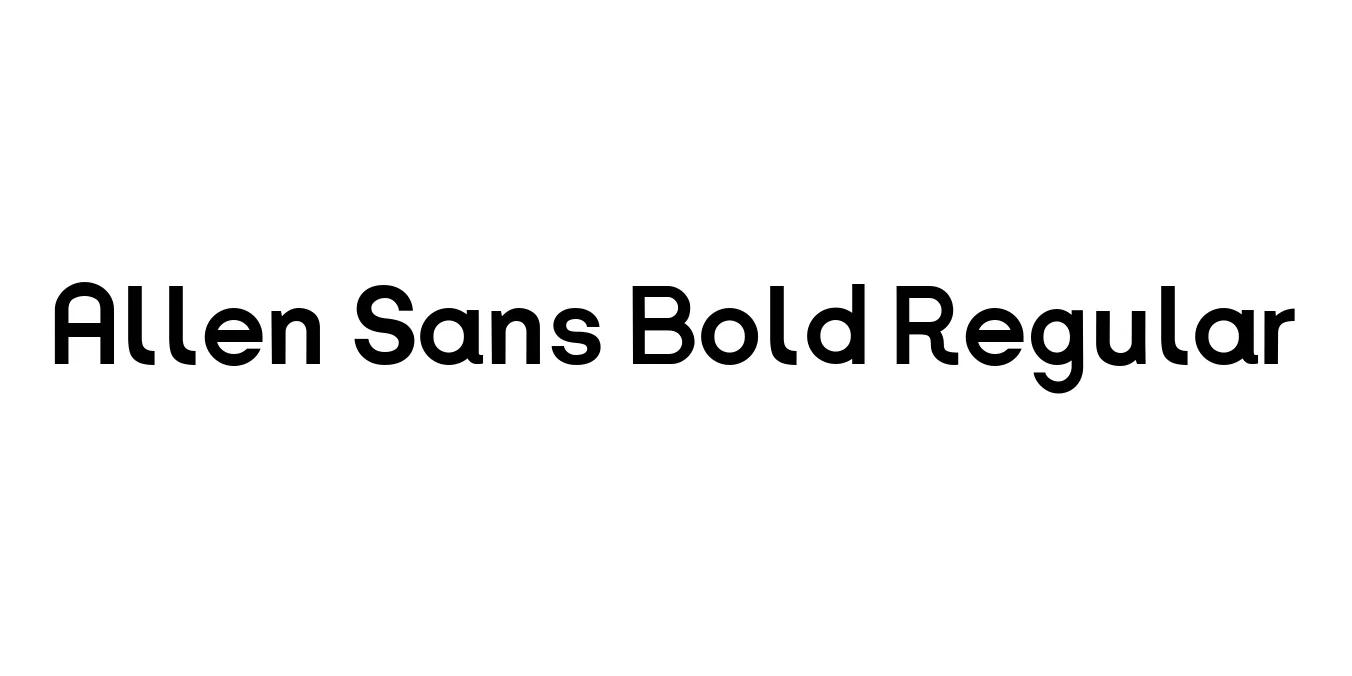
Allen Sans Bold Regular
Allen Sans Bold Regular is a contemporary geometric sans-serif typeface designed for maximum impact and clarity. Its structure is built upon clean lines and balanced proportions, making it an ideal choice for modern visual identities. The font strikes a perfect balance between professional rigidity and approachable softness, ensuring that your message is conveyed with both authority and elegance.
This bold weight specifically excels in high-contrast environments such as digital interfaces and large-scale print media. Originally developed to meet the demands of corporate branding and editorial design, it has evolved into a versatile tool for designers seeking a timeless aesthetic. Whether used for striking headlines or minimalist logos, Allen Sans Bold provides a robust foundation for any creative project.
Allen Sans Bold Regular Best Uses
Perfect for creating strong, memorable visual identities and professional logos.
Its bold weight makes it excellent for catching attention in magazines or digital banners.
Clear and highly legible, making it suitable for billboards and poster design.
Highly readable even at scaled sizes in modern mobile and web applications.